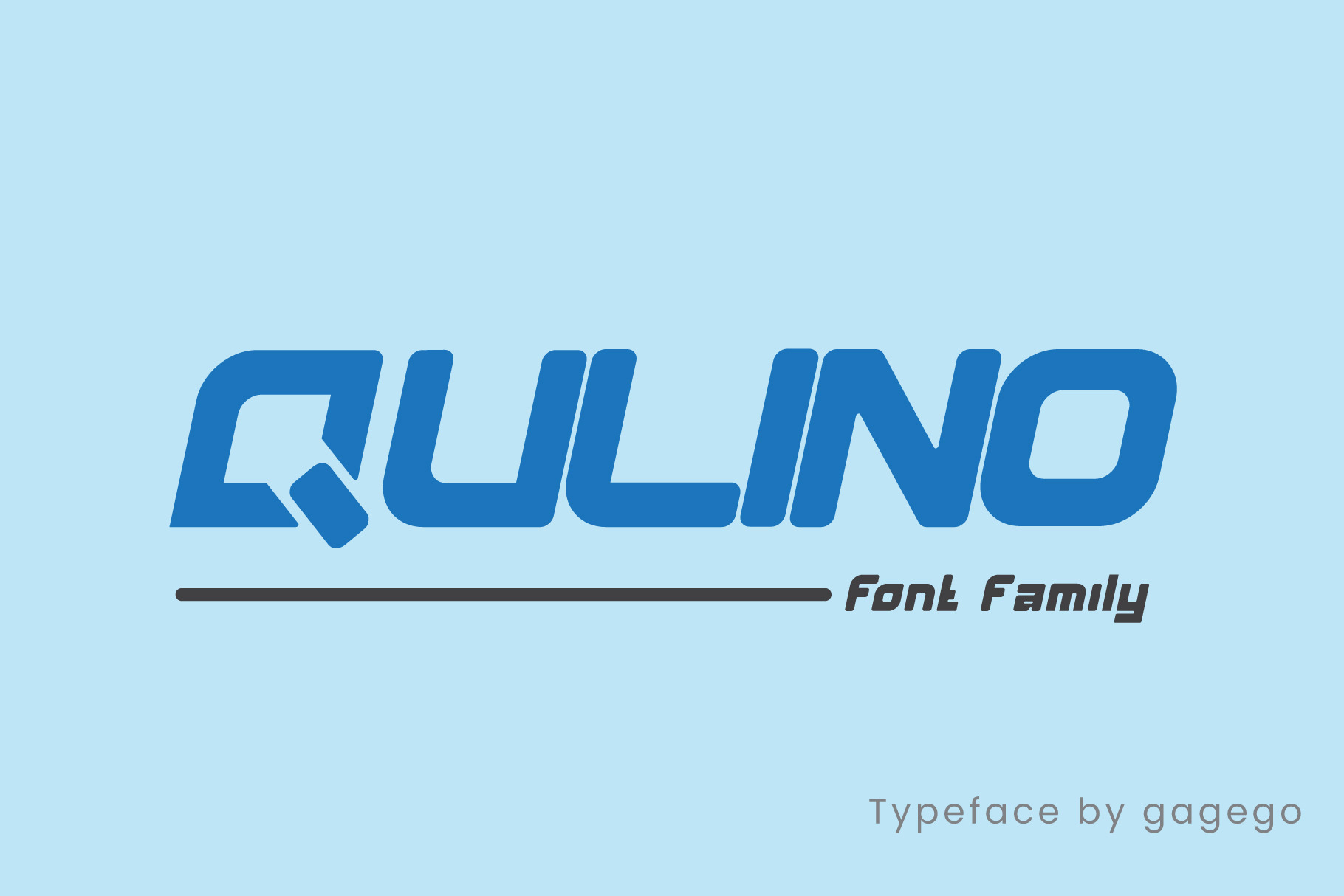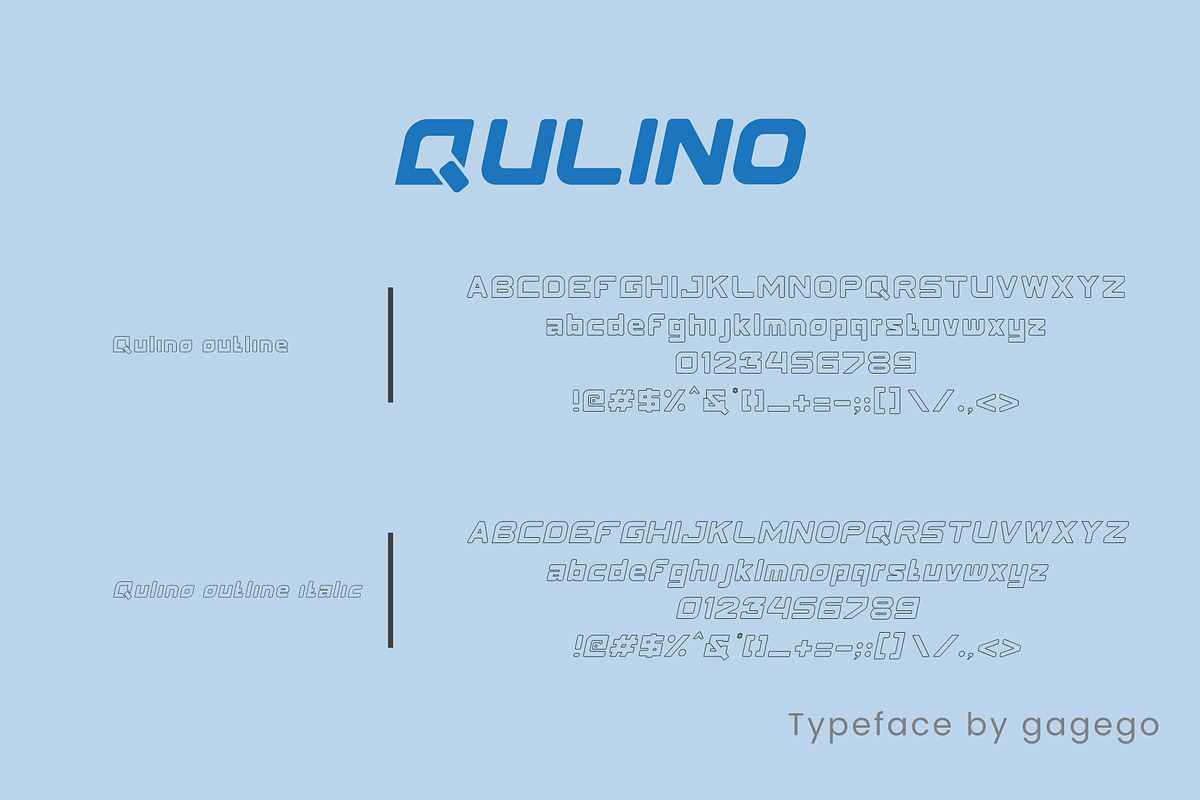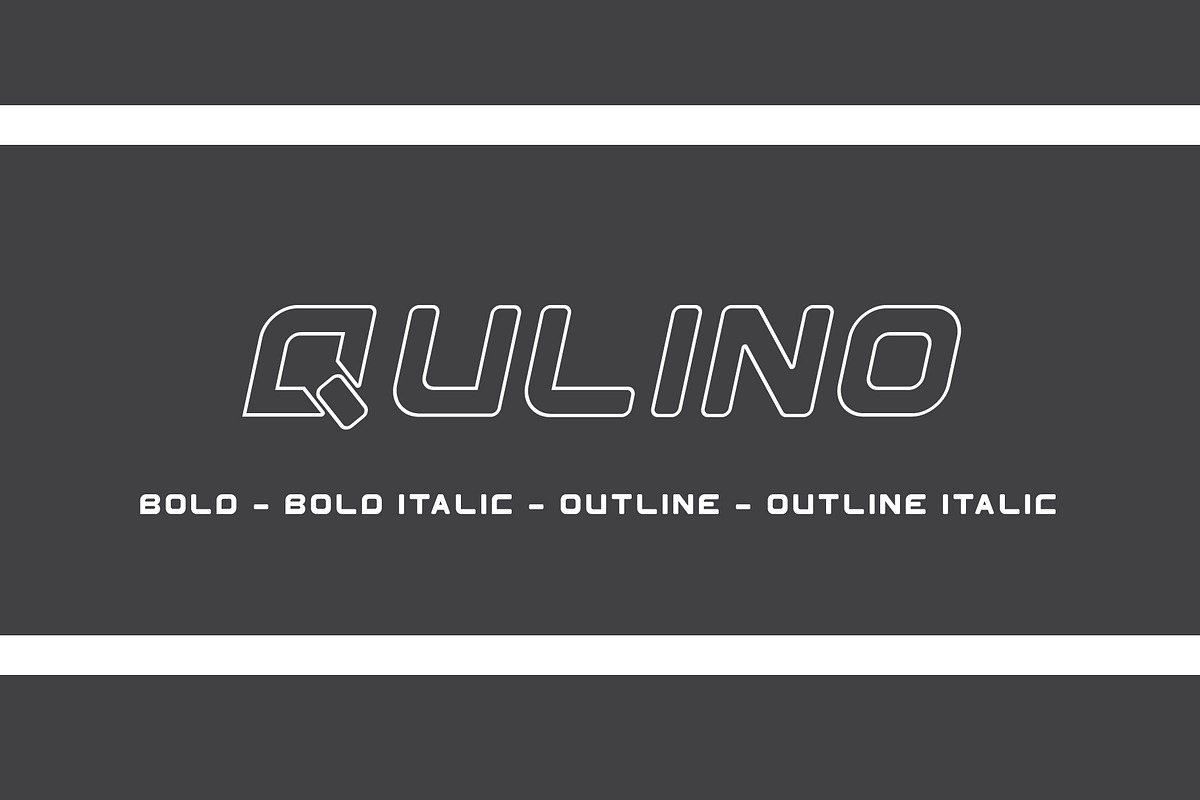
QULINO FONT SANS SERIF
We provide a unique but interesting font that name is QULINO FONT. This font provides uppercase and lowercase. This font is suitable for making books or banners and whatever, because this font looks relaxed, happy, happy, and unique. QULINO FONT is available in 4 types of fonts
1 bold 2 bold italic 3 outline 4 outline italic